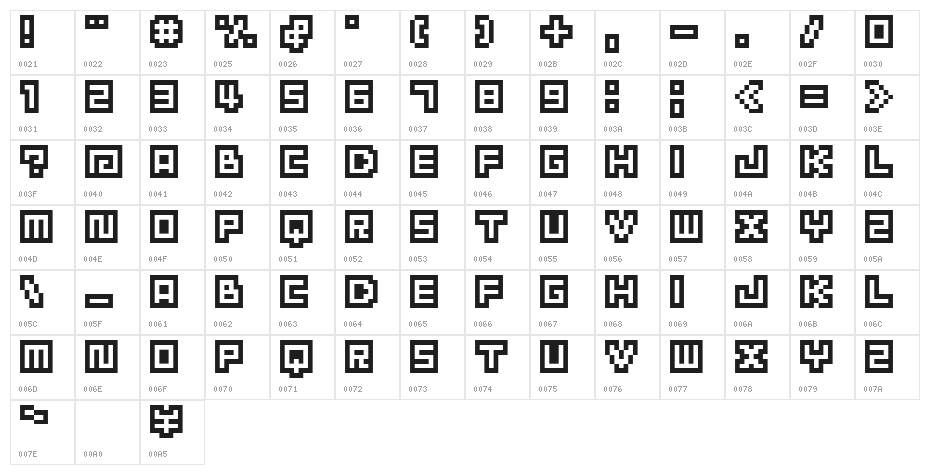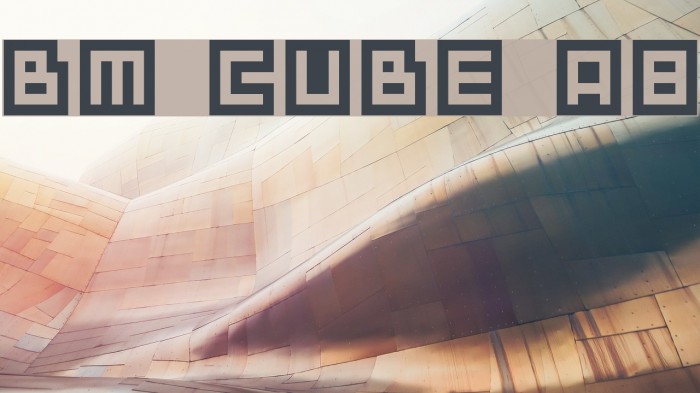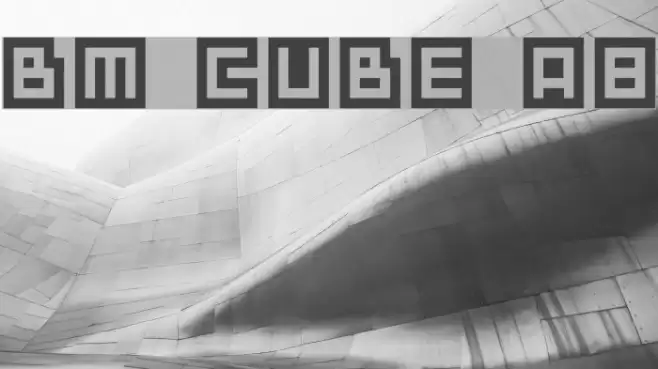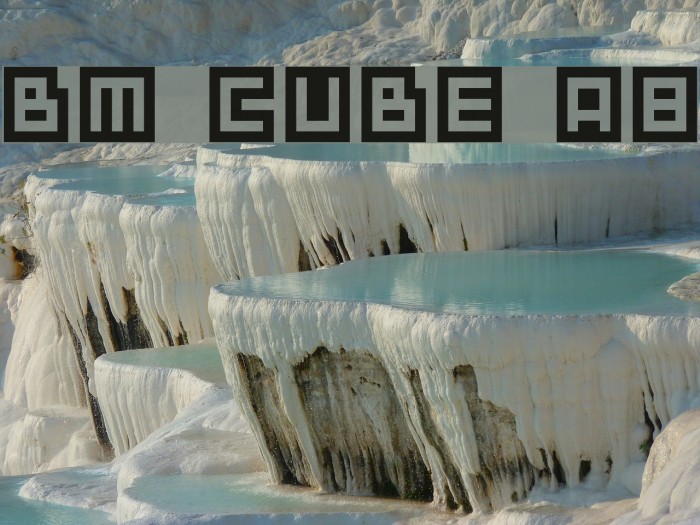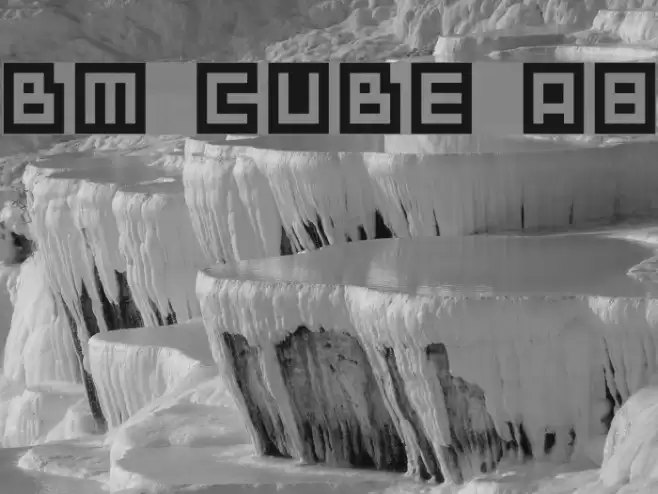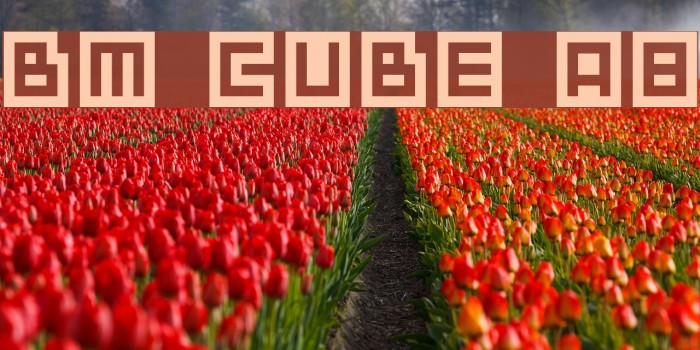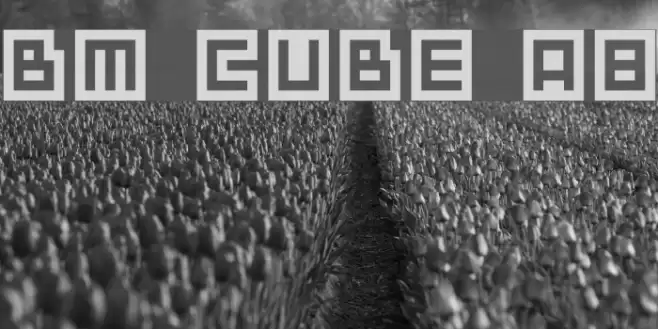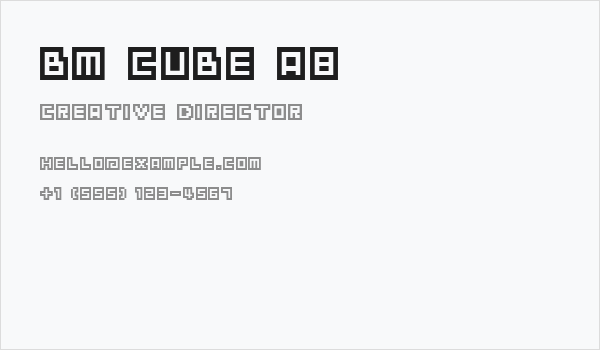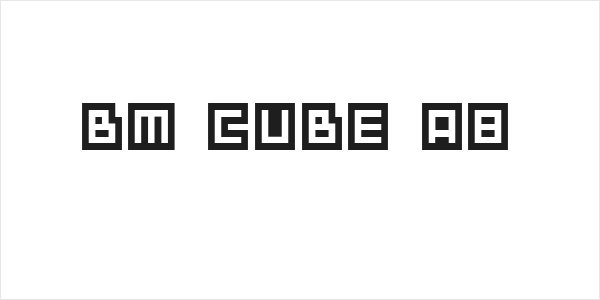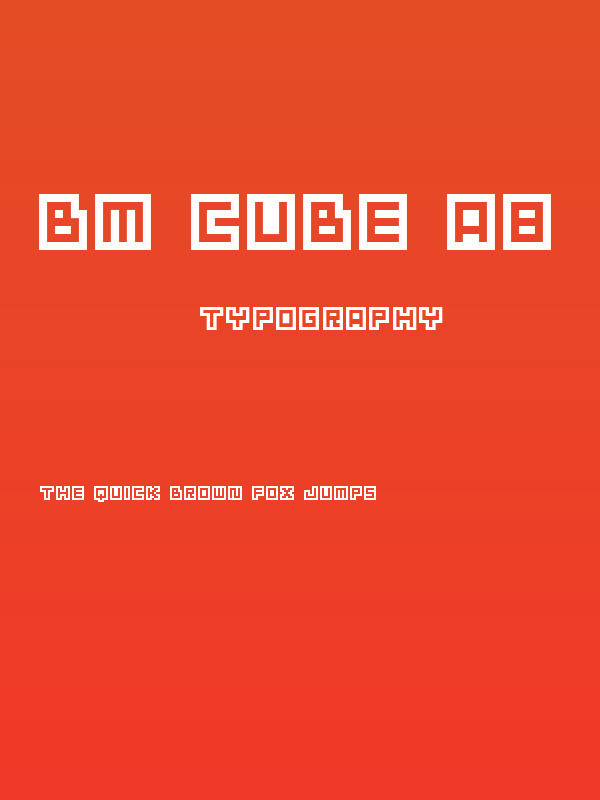
BM cube A8 Font
BM cube A8 Description
This font features a bold, pixelated design reminiscent of classic arcade games and early digital displays. Each character is constructed with a blocky, geometric style that emphasizes sharp angles and straight lines. The uniformity in height and width across all characters creates a cohesive and structured appearance. The font's distinct outline adds depth, making it stand out against various backgrounds. Its retro aesthetic is both nostalgic and modern, appealing to projects that aim to capture a sense of digital nostalgia or futuristic themes.
| Use Case | Headlines, Logos, Digital displays |
| Proposed Projects | Ideal for video game graphics, retro-themed posters, digital art projects, and branding that seeks a nostalgic or tech-inspired look. |